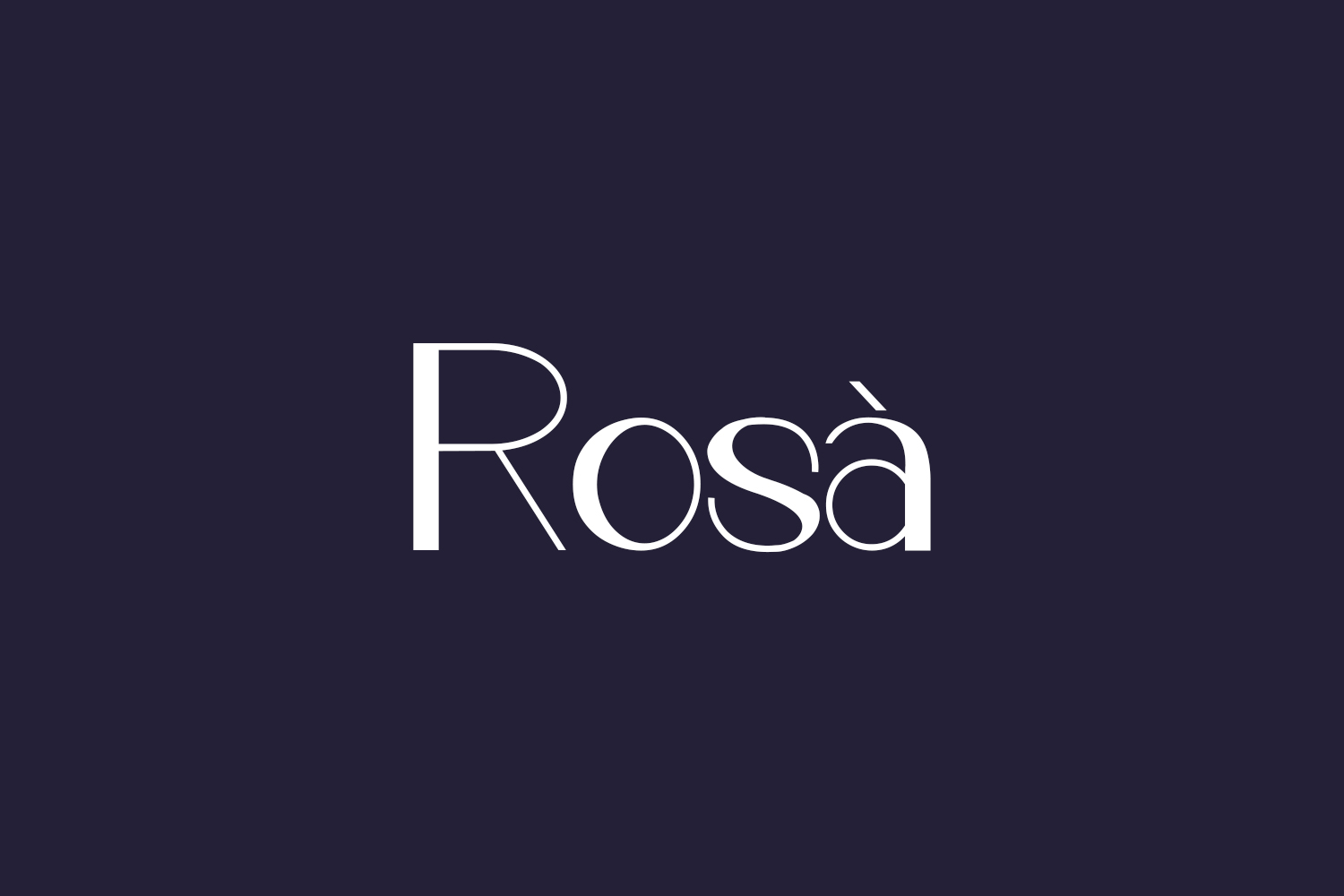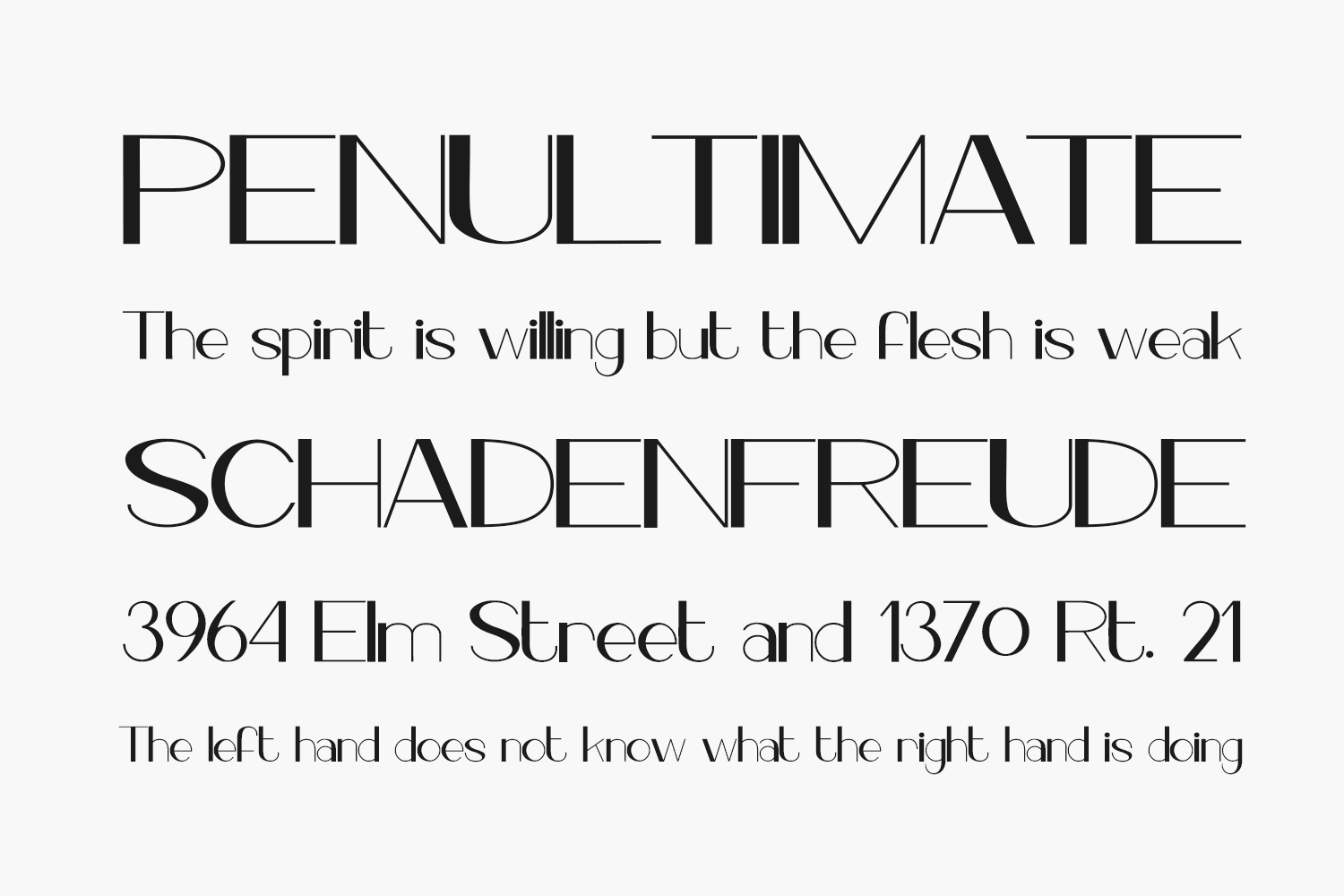
Rosà Free Font is a beautifully light and delicate sans serif font with a modern feel. This unique font will add a luxurious touch to a big variety of design projects. Rosà Free Font was designed by DmLetter31 and is free for personal use only. Please purchase the full version for commercial use.